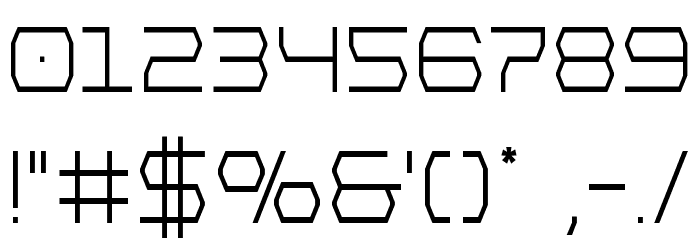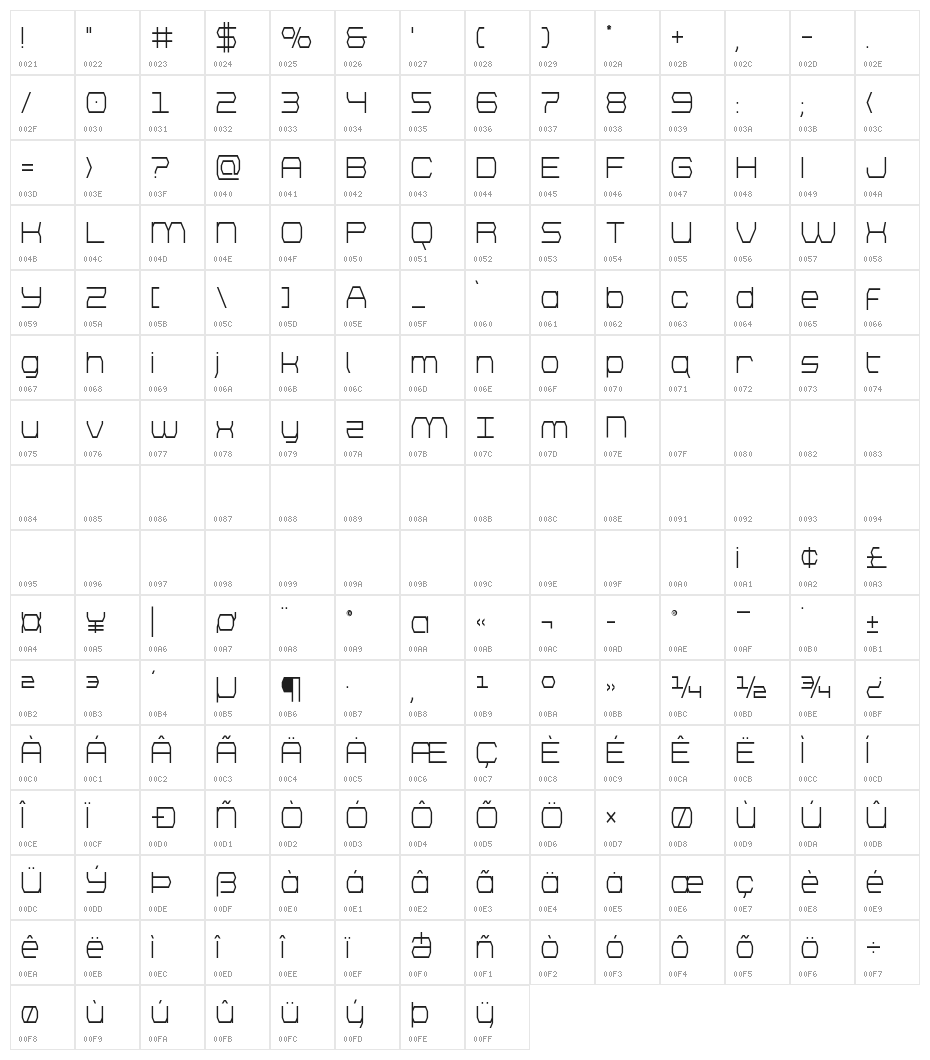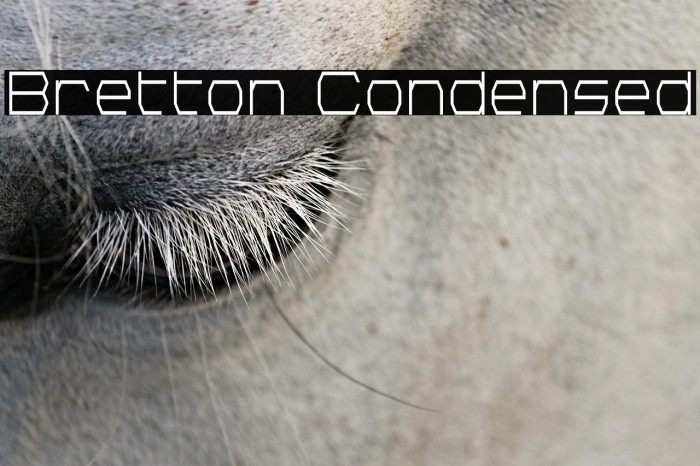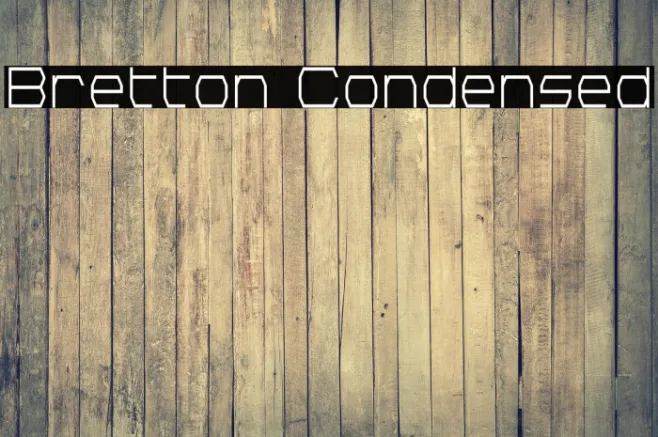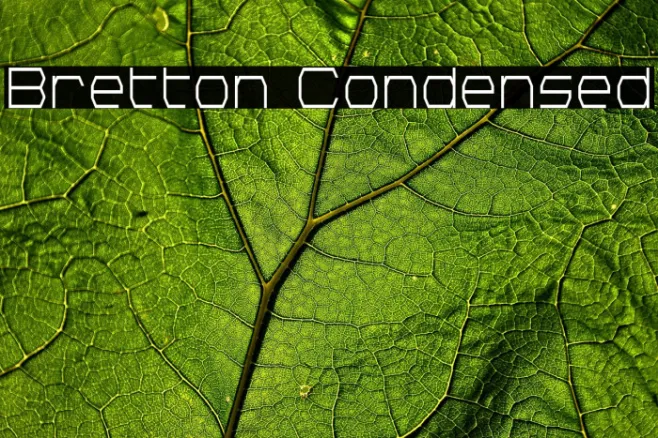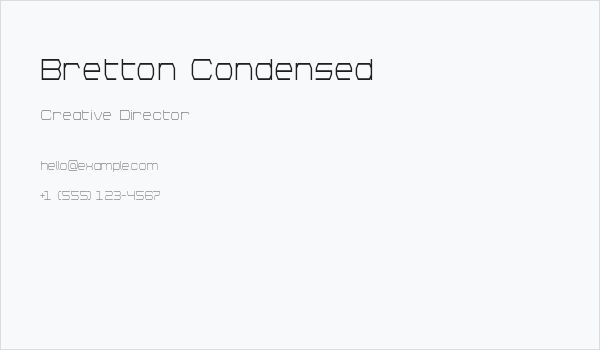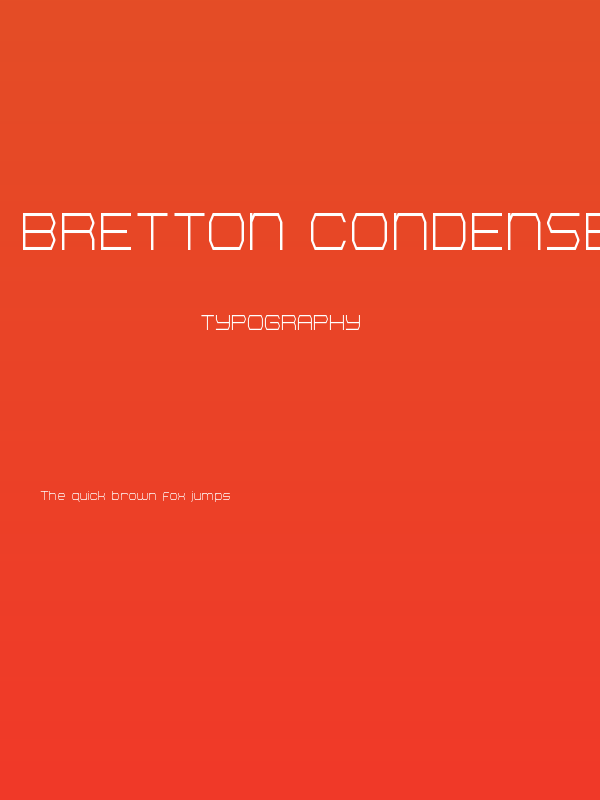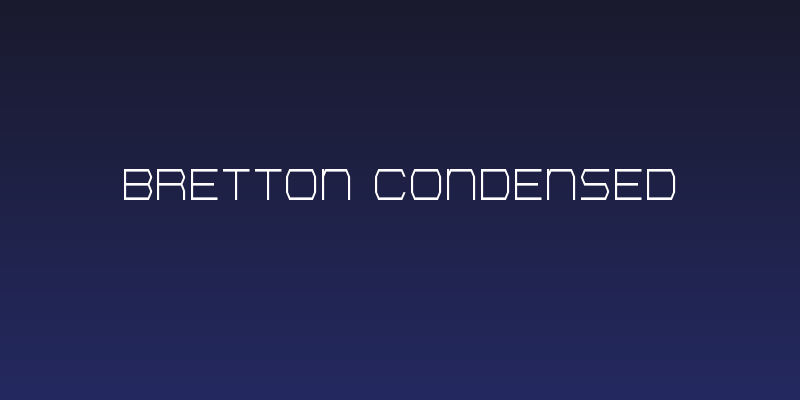
Bretton Condensed Font
Bretton Condensed Description
This font features a geometric and angular design, characterized by its sharp edges and condensed form. The uppercase and lowercase letters maintain a consistent height, creating a uniform appearance. The numerals and special characters follow the same angular style, enhancing the font's modern and futuristic aesthetic. The overall design is clean and minimalistic, making it suitable for contemporary projects. Its condensed width allows for efficient use of space, making it ideal for headlines and titles where space is limited. The font's unique style ensures that it stands out, making it a great choice for branding and advertising materials.
Proposed ProjectsIdeal for modern branding, advertising, headlines, and titles.